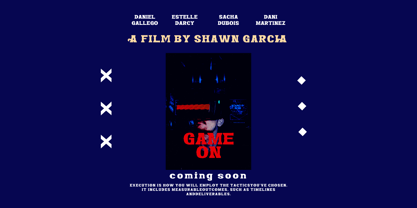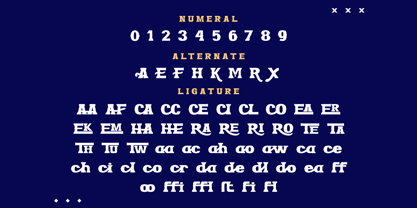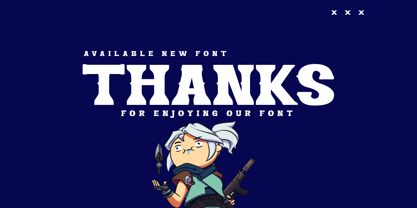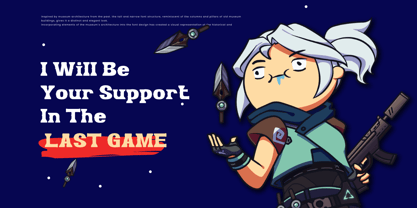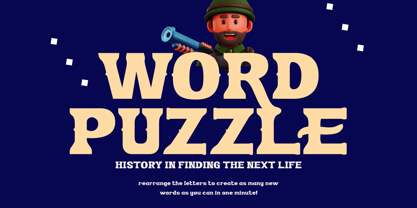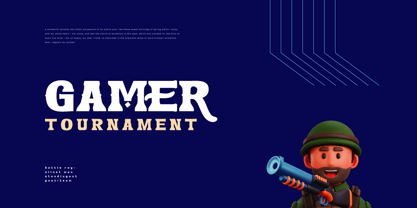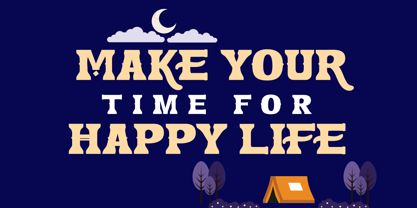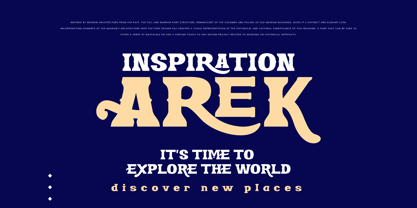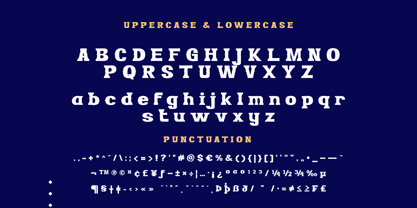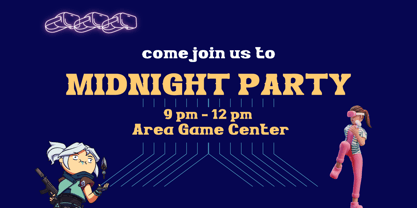
Enroz
by Trabas Kriya
The Enroz Font Family was designed by Murozakul Akhsan and published by Trabas Kriya. Enroz contains 1 styles.
ENROZ is a display font that commands attention. Its bold, striking characters make it perfect for headlines, posters, and other designs where you need to make a strong impact. With ENROZ, your message will never be overlooked.
Designers: Murozakul Akhsan
Publisher: Trabas Kriya
Foundry: Trabas Kriya